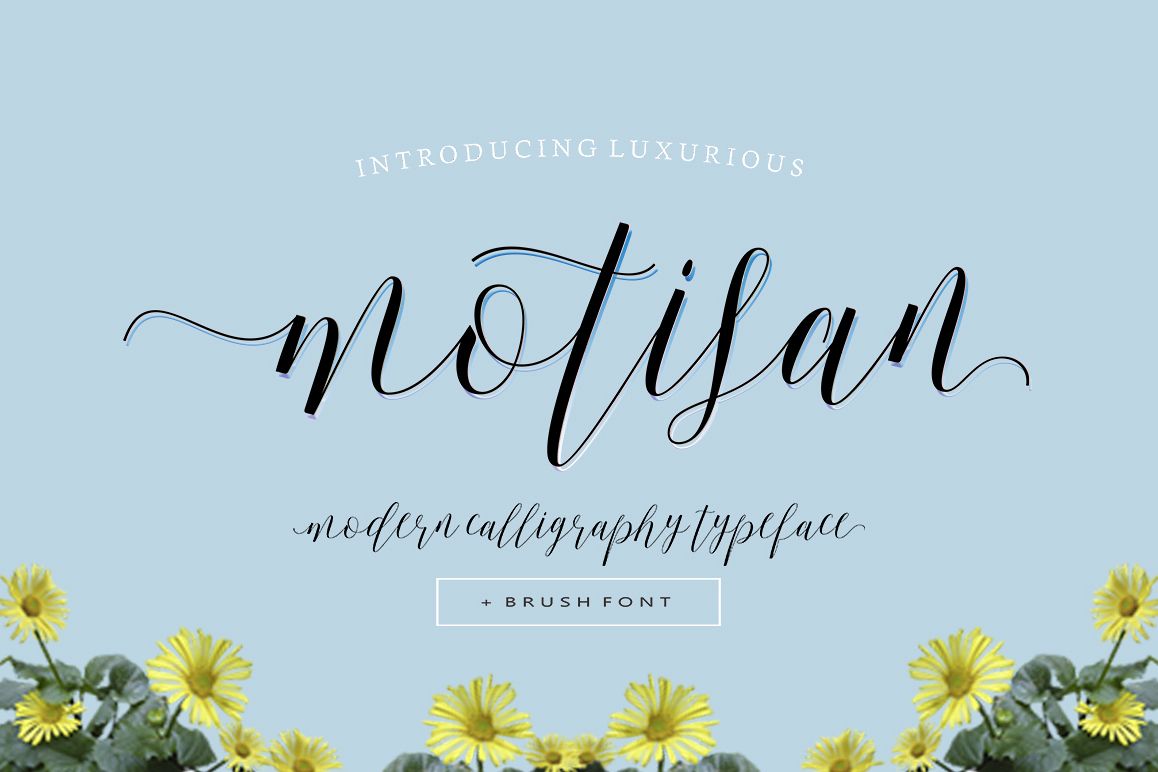
Motisan Script
Motisan Scrip
Motisan Brush 2
Motisan Brush 1
Welcome to Motisan Script + Brush Font is a modern calligraphy typeface, casual and pretty with swashes. Can be used for many purposes. such as title, signature, logo, wedding invitations, letterhead, signage, labels, newsletters, posters, badges, etc. Motisan Script features Open type, including the initial and terminal letters, alternates, ligatures and International support for most Western languages ??included.